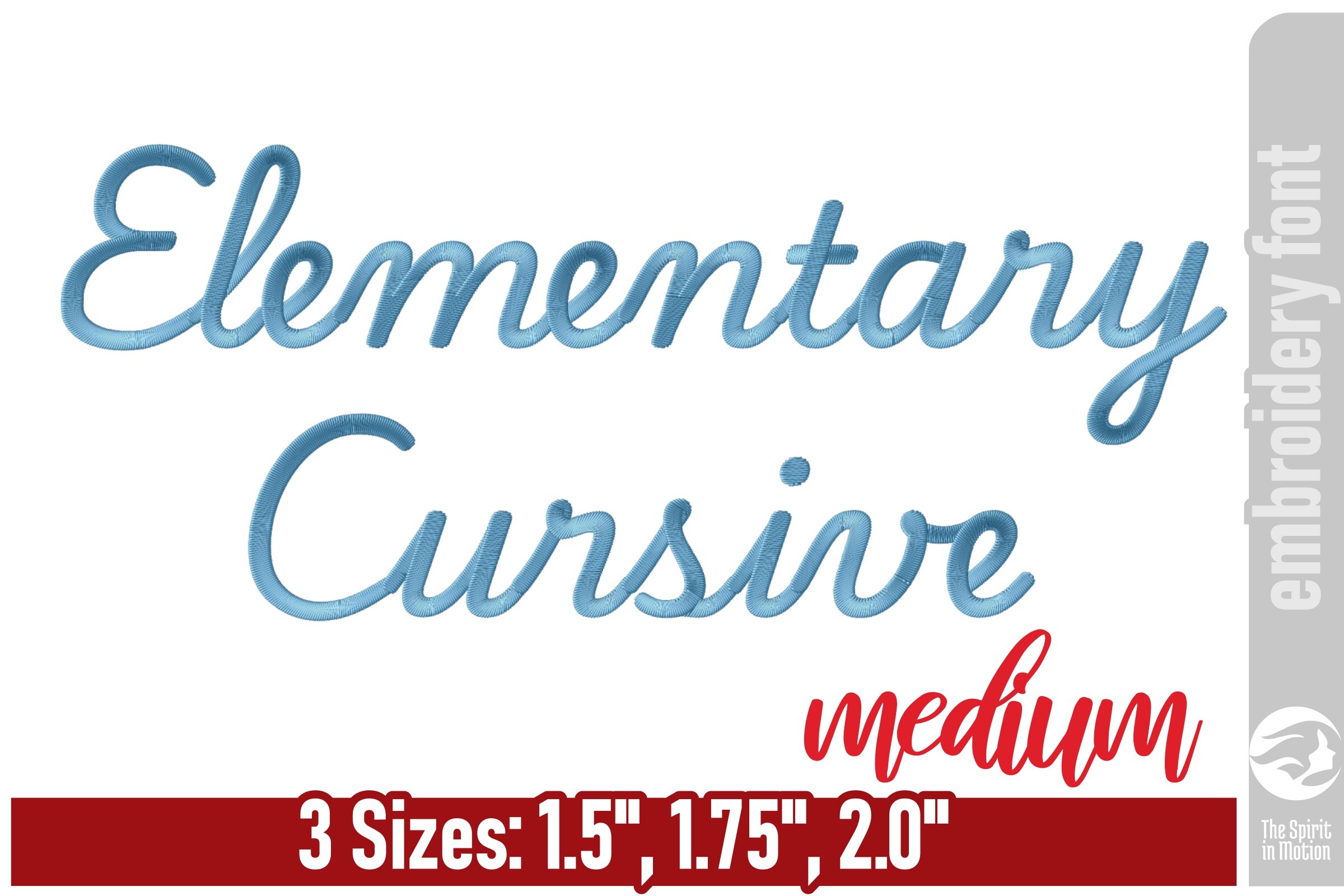
Elementary Cursive Embroidery Font - M
Elementary Cursive is a beautifully digitized embroidery font based on the classic primary school handwriting curriculum. Specifically designed for back-to-school projects, this font captures the clean, rhythmic loops and precise slants of foundational penmanship, making it the perfect choice for personalizing backpacks, library bags, and school uniforms. Optimized for high-quality machine embroidery, it features smooth paths to ensure crisp, legible stitching with minimal jump stitches — perfect for creating “First Day of School” shirts, teacher gifts, or custom name labels for classroom supplies. This font provides an authentic, “classroom-ready” finish that celebrates the art of learning with every stitch.